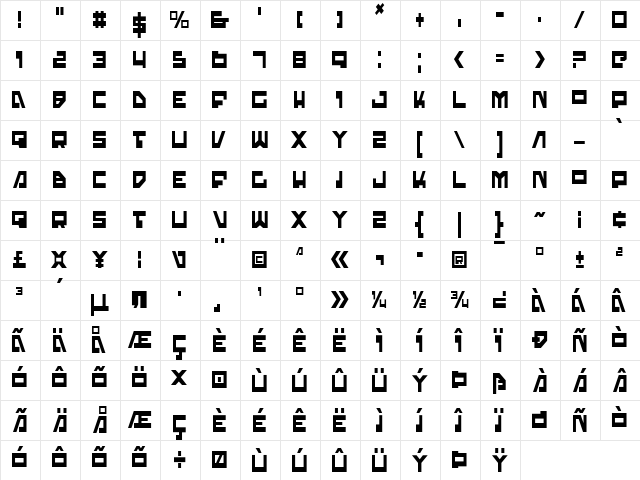
Trajia Condensed Condensed
Design Context for Trajia Condensed Typeface
Trajia Condensed is a composed and adaptable typeface that performs quietly and consistently across a wide range of design contexts. Its narrow stance lets it pack a punch even in space-constrained designs.